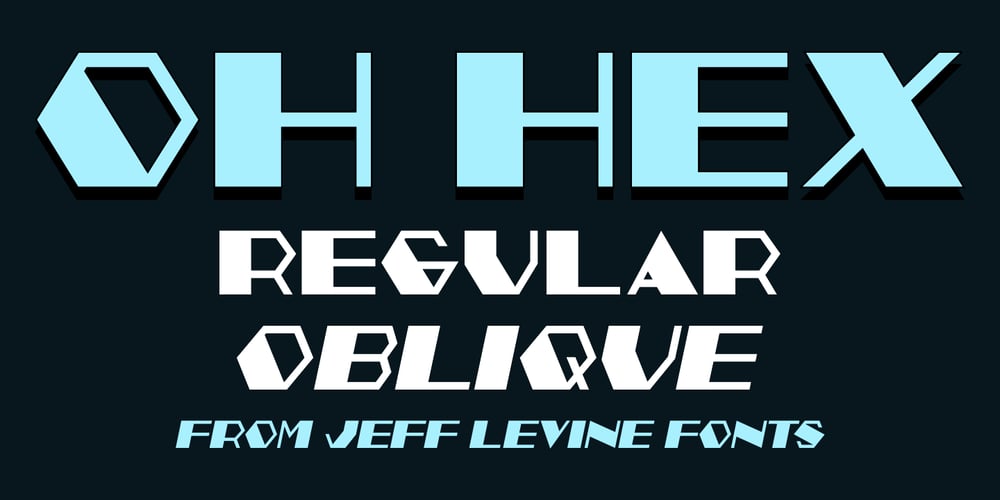
Oh Hex JNL
Oh Hex JNL font
Oh Hex JNL Font Family was designed by Jeff Levine and published by Jeff Levine. Oh Hex JNL contains 2 styles and family package options. An Art Deco “thick and thin” novelty type design based on the hexagon shape was found within the pages of “La Lettre Dans le Decor & La Publicite Modernes” – a 1930s-era French alphabet collection. The title somewhat translates to “The Letter in Modern Decor and Advertising”). Named Oh Hex JNL, it is now available in both regular and oblique versions.